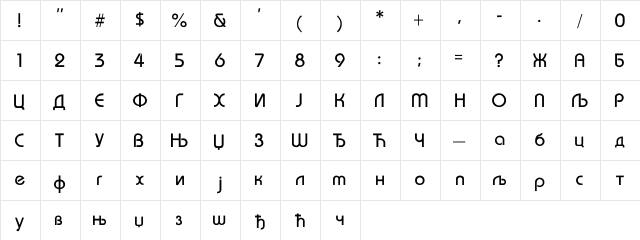
CYBlippoR Regular
Design Context for CYBlippoR Typeface
CYBlippoR takes a measured approach to typography — its balanced proportions and neutral character make it a reliable workhorse for both digital and print work.